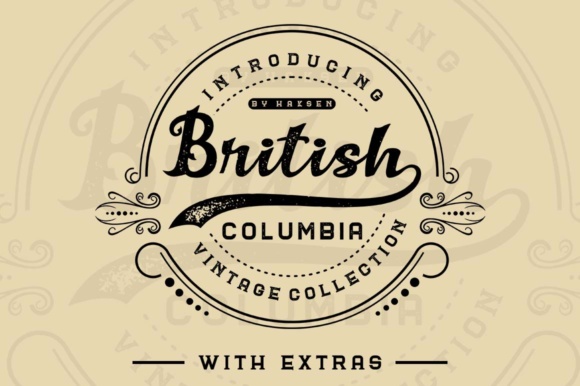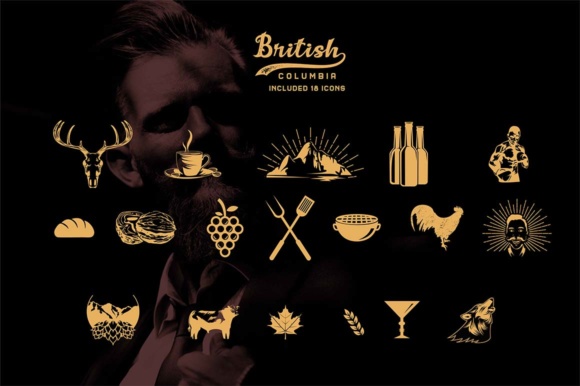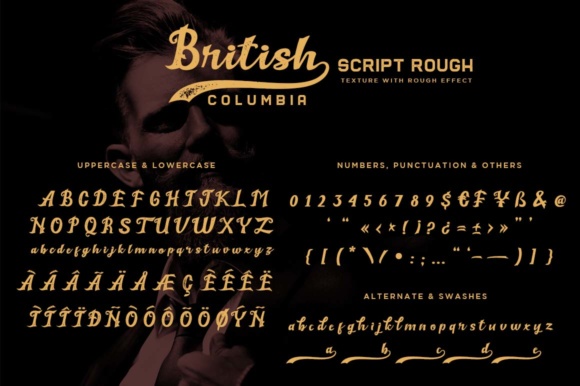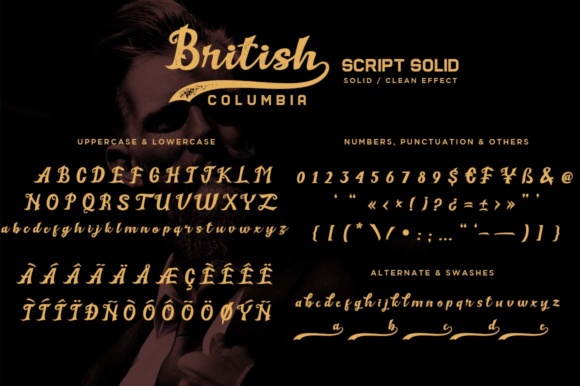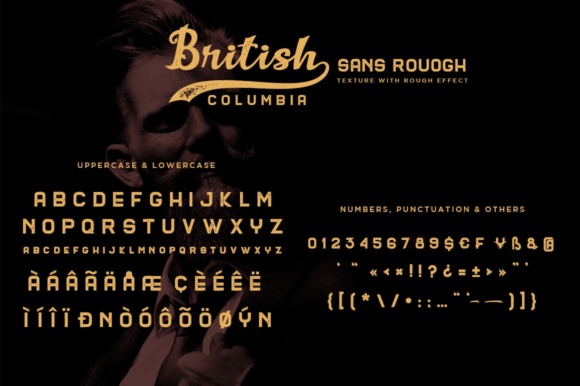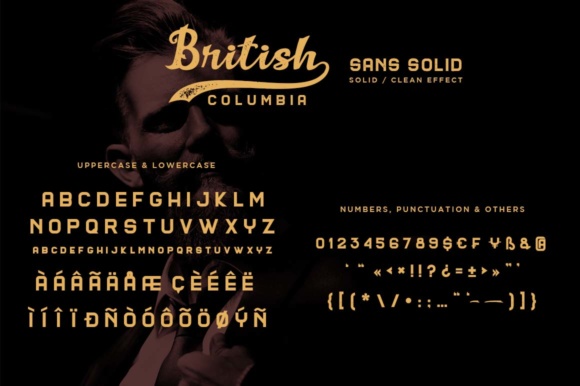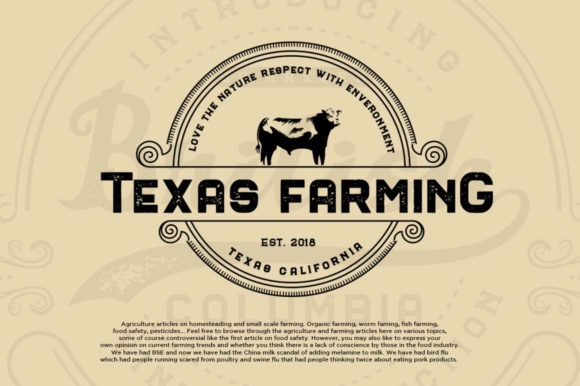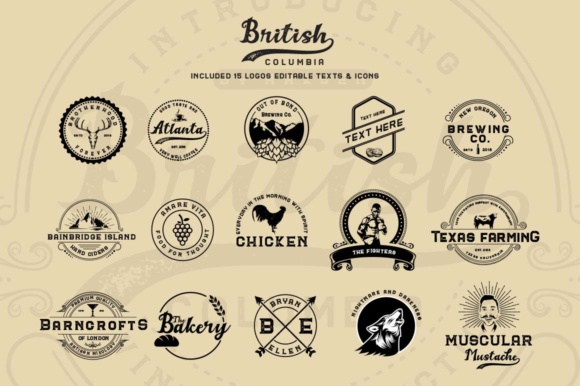
British Columbia Family Font
About British Columbia Family Font
The British Columbia Collection contains a set of 3 fonts which all come in two weights: rough and solid, and will add an authentic handcrafted look to your designs.
The fonts are inspired by vintage brick wall murals and they work perfectly for logos, packaging, or title designs with a hand crafted vibe. Furthermore the product contains a set of 15 editable logo templates for Adobe Illustrator (CS & CC) and over 18 hand drawn icons!! This makes logo & badge design easier than ever before.